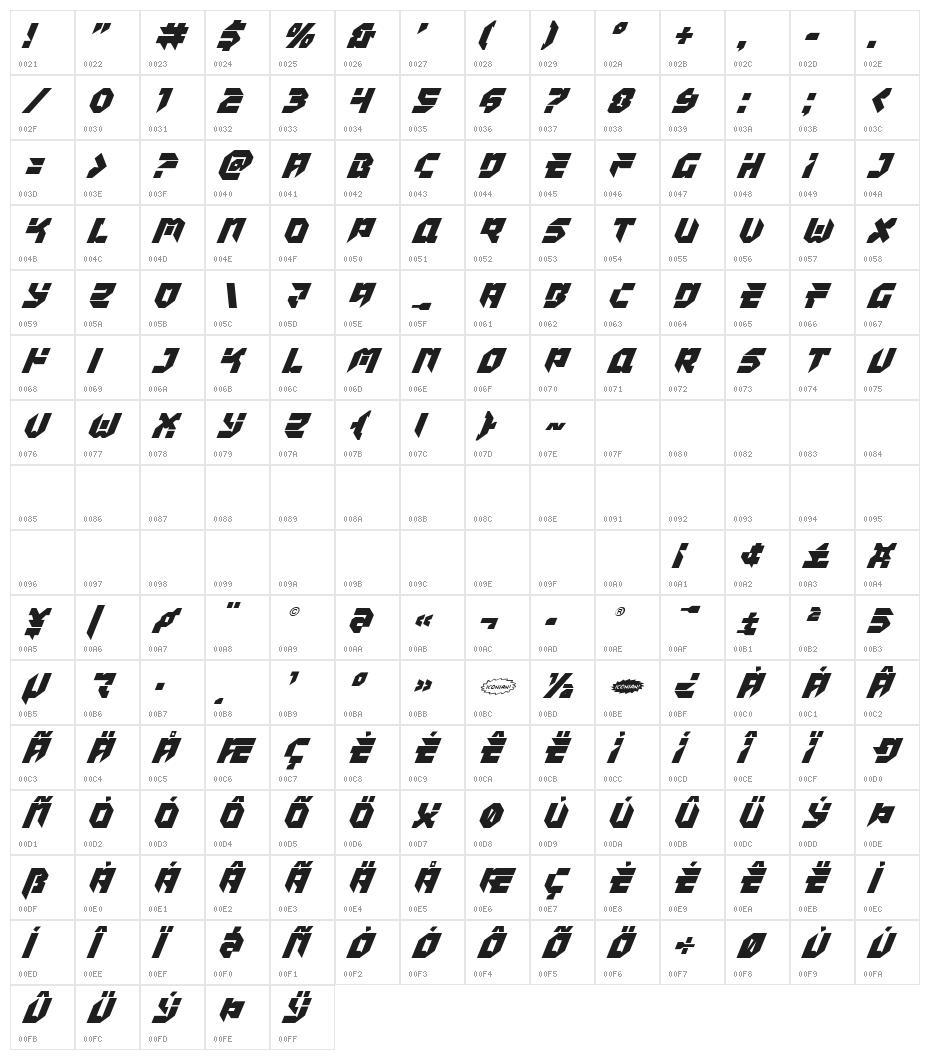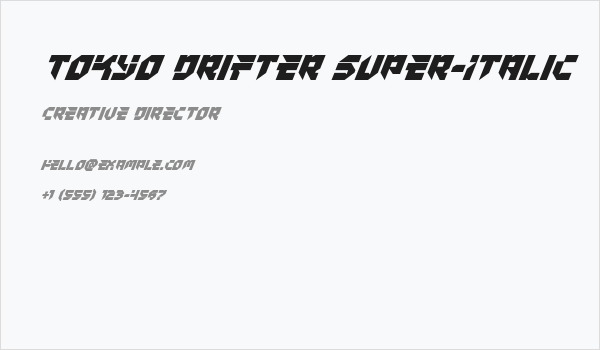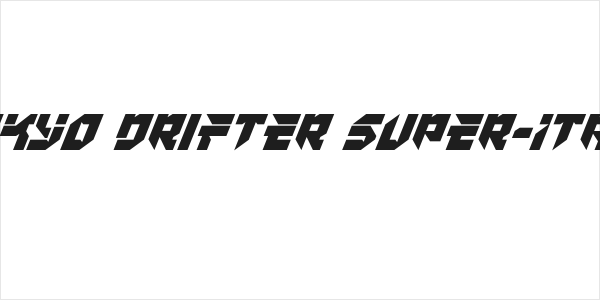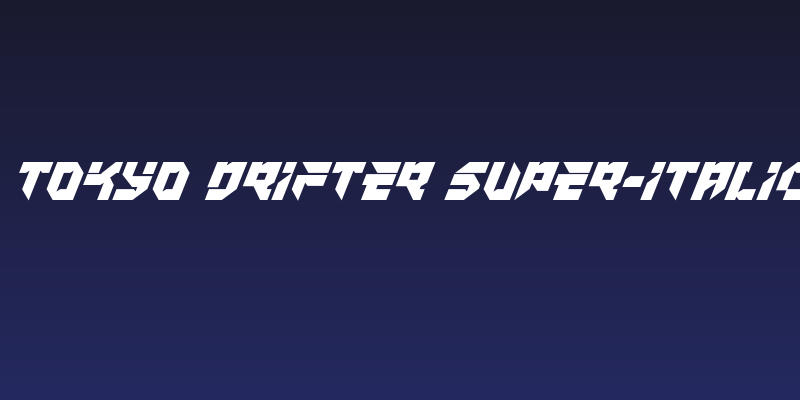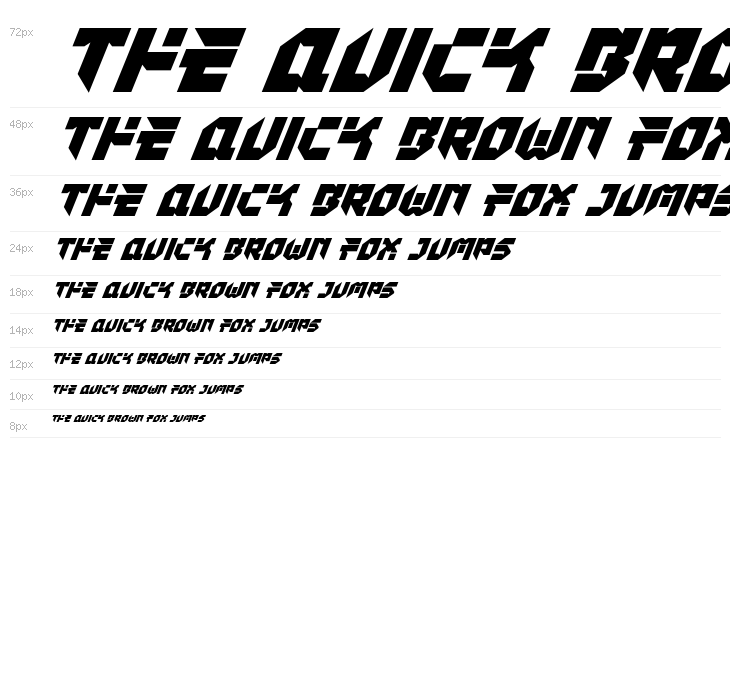
Tokyo Drifter Super-Italic Font
Tokyo Drifter Super-Italic Description
This font exudes a dynamic and futuristic vibe, characterized by its sharp angles and bold, geometric shapes. The letters are heavily slanted, giving a sense of motion and speed, reminiscent of a fast-paced urban environment. The uppercase and lowercase letters maintain a consistent style, with thick strokes and angular cuts that create a striking visual impact. The numbers and special characters follow the same design principles, ensuring uniformity across all elements. This font is perfect for projects that require a modern and edgy aesthetic, making it ideal for branding, posters, and digital media.
| Proposed Projects | Ideal for branding, posters, digital media, and any project needing a modern, edgy look. |